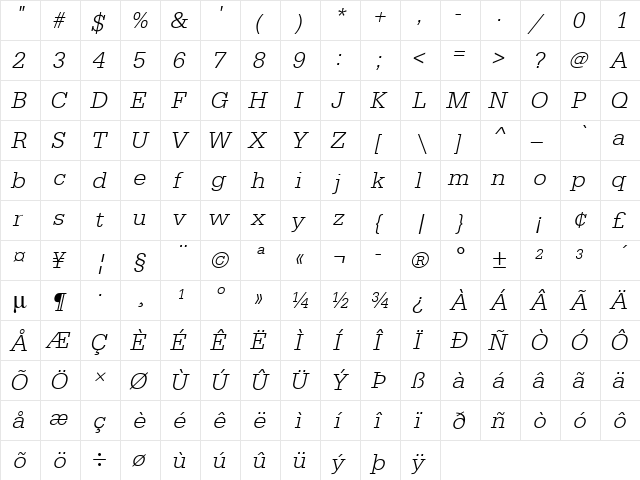
URWEgyptienneTLig Oblique
URWEgyptienneTLig offers clean, dependable letterforms without strong stylistic allegiance, making it a practical choice for designers who need flexibility. The dynamic lean of this cut emphasises speed and emphasis in any layout.
Pro Tip: Try URWEgyptienneTLig for annotation and caption copy alongside an upright companion — the contrast in angle creates a dynamic but ordered typographic system.